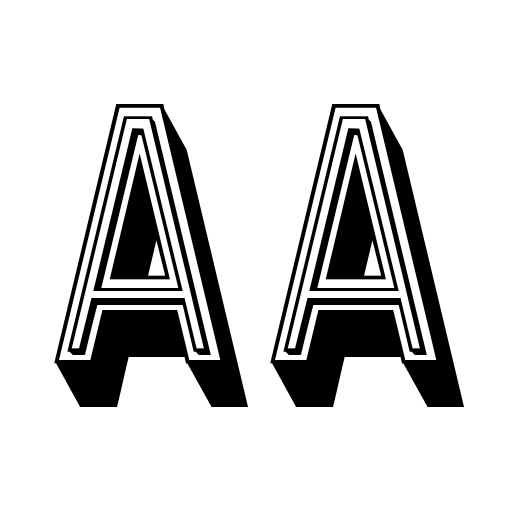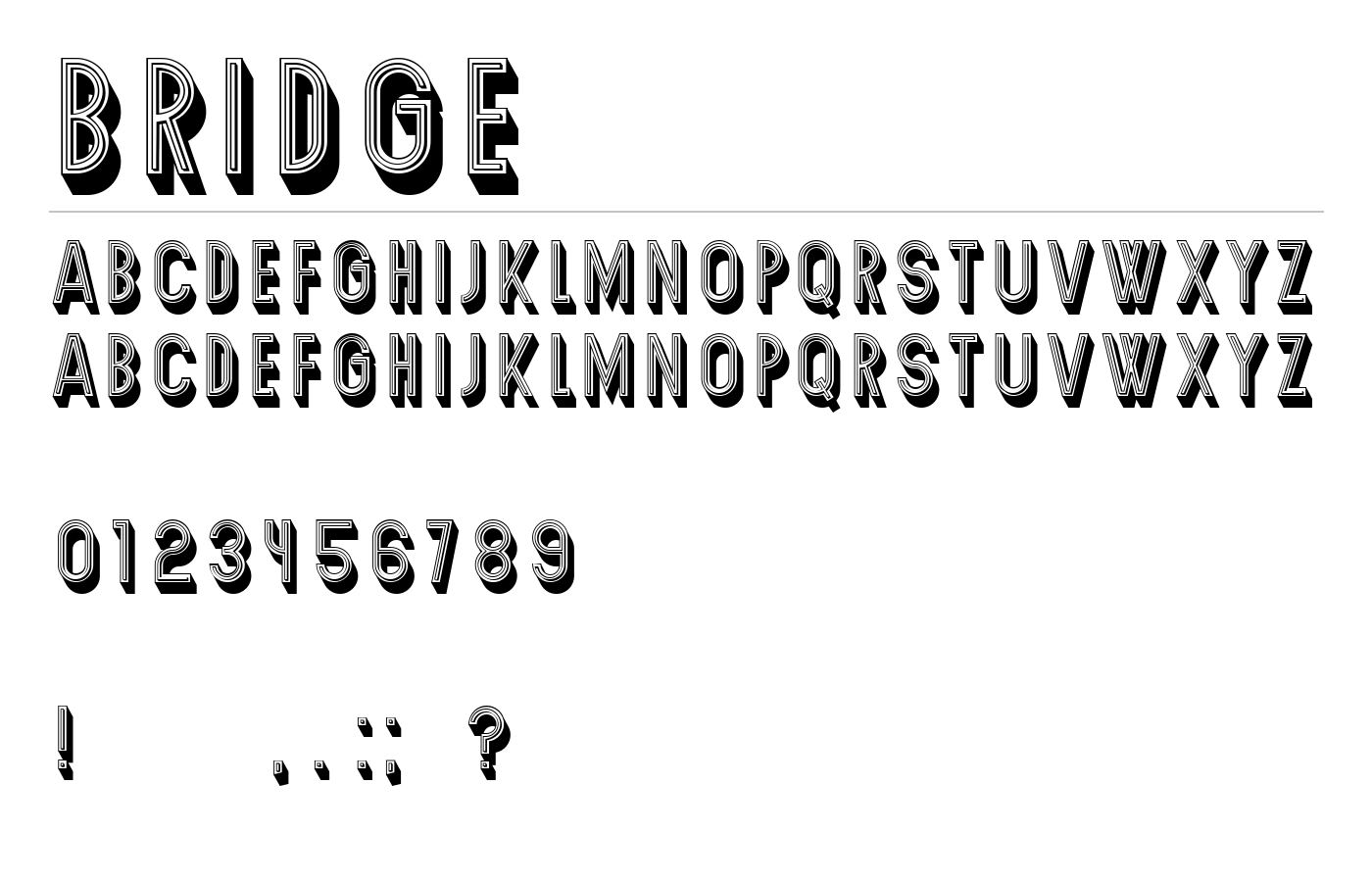
Bridge Font is a bold and decorative sans serif typeface featuring tall, narrow letters with a striking layered outline and shadow effect that gives it a three-dimensional, vintage-inspired look. Its clean geometric shapes combined with playful depth make it ideal for eye-catching headlines, posters, or branding that requires a retro yet modern personality. This font adds a unique, dynamic flair to designs seeking a bold statement with a touch of classic charm.
Bridge Font
About Bridge Font
| Font family | Bridge Font |